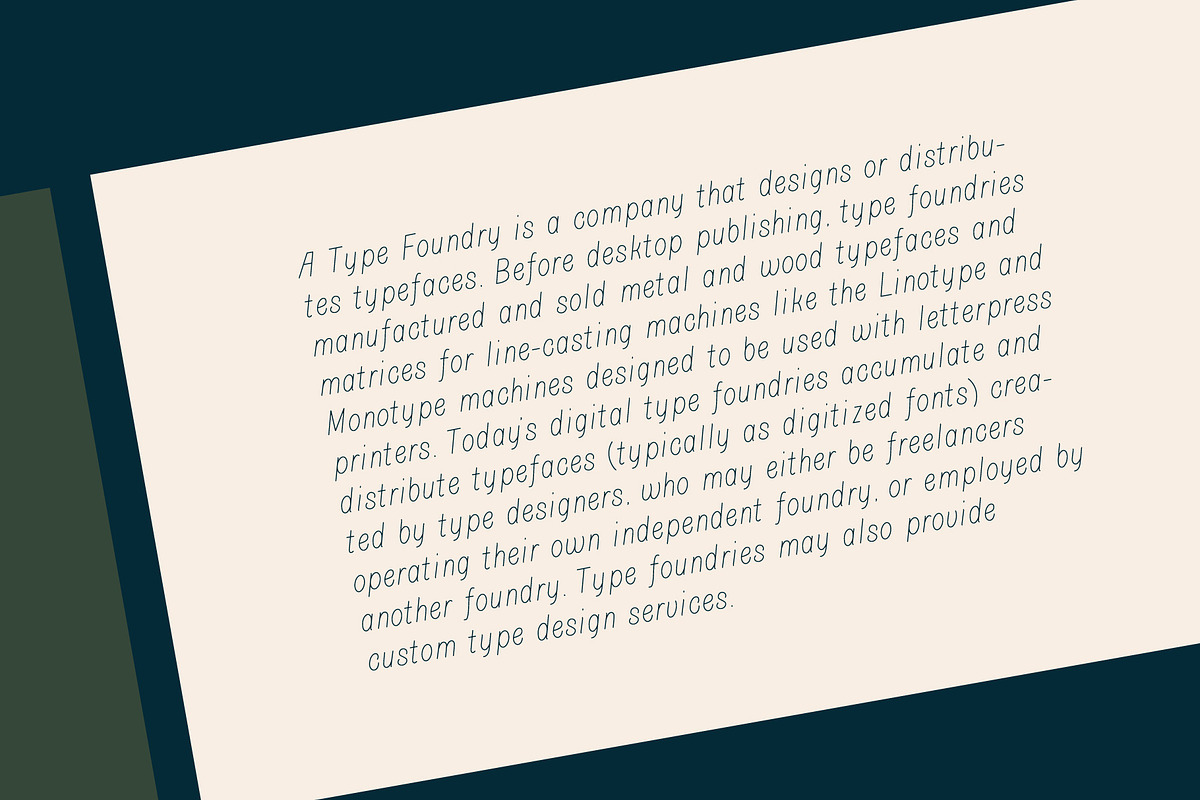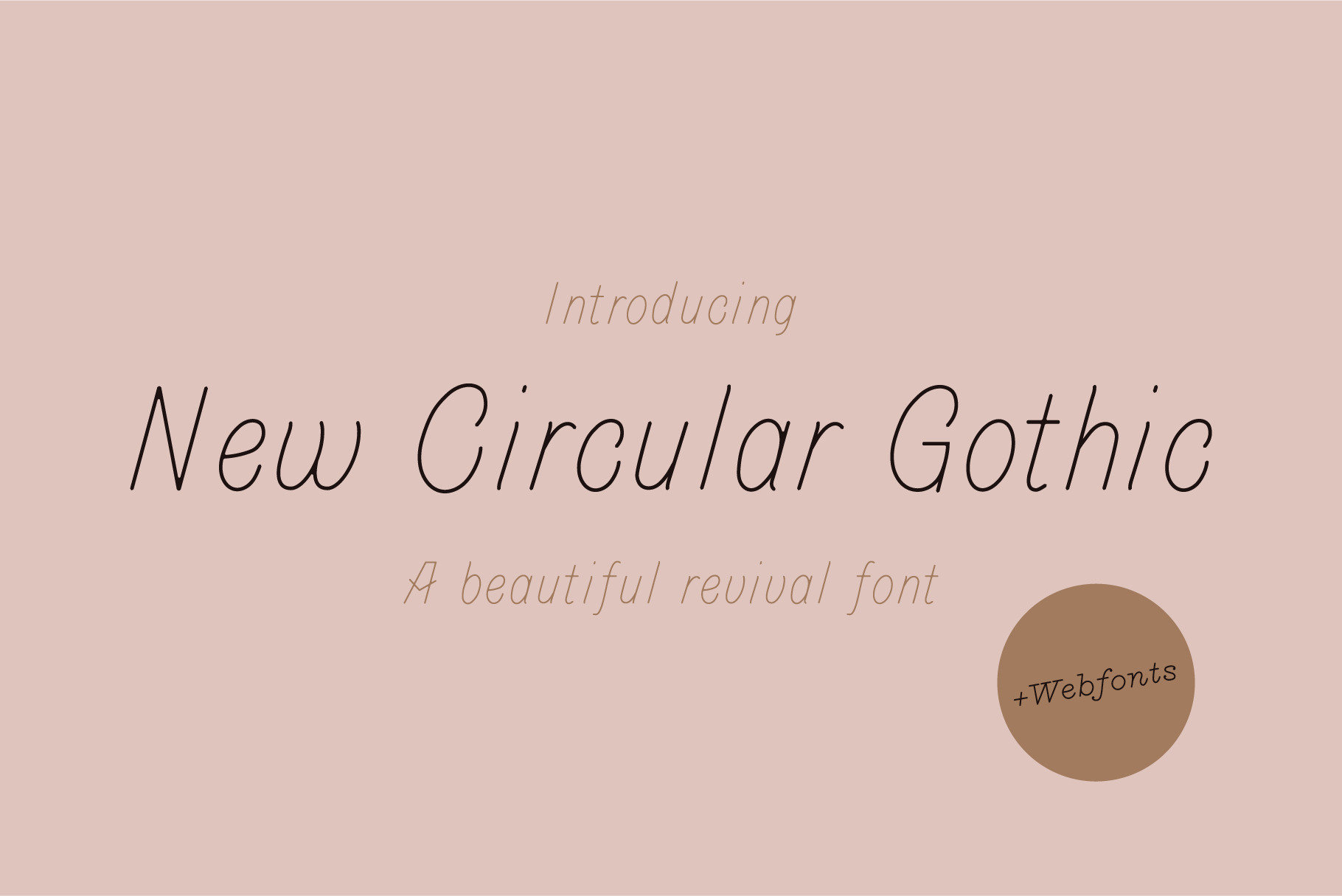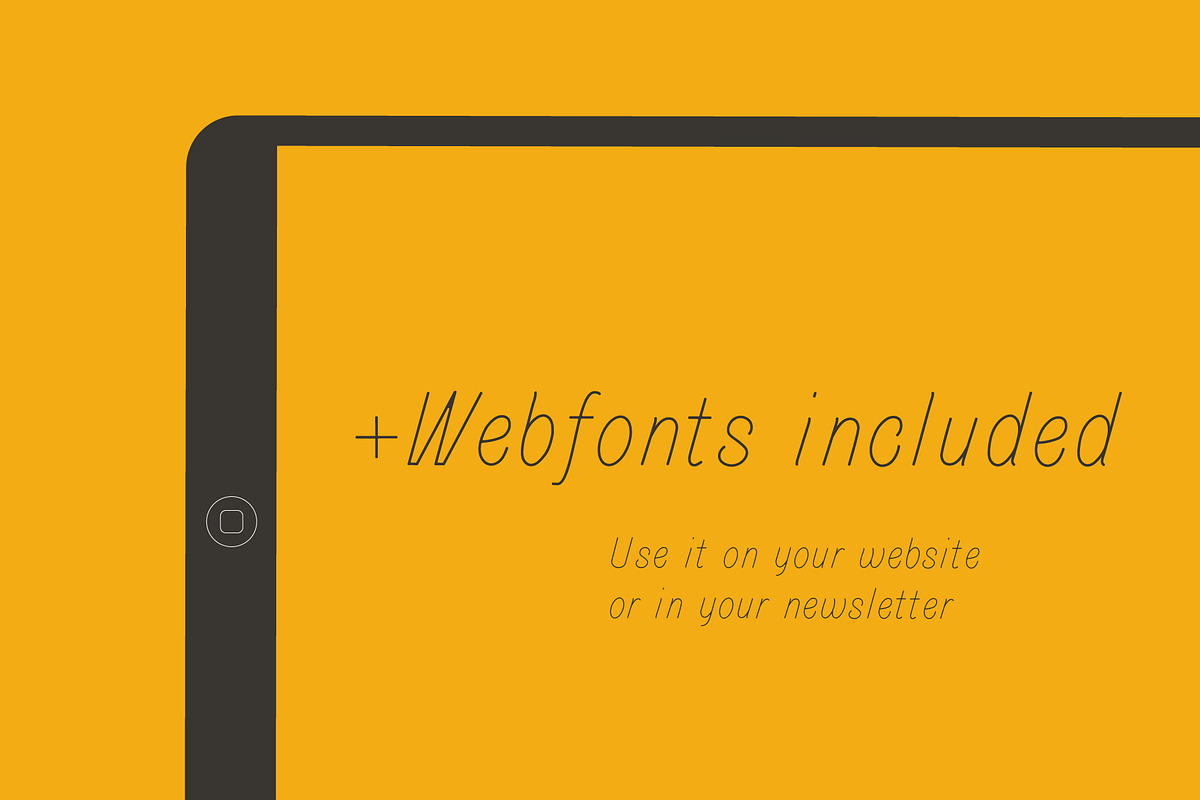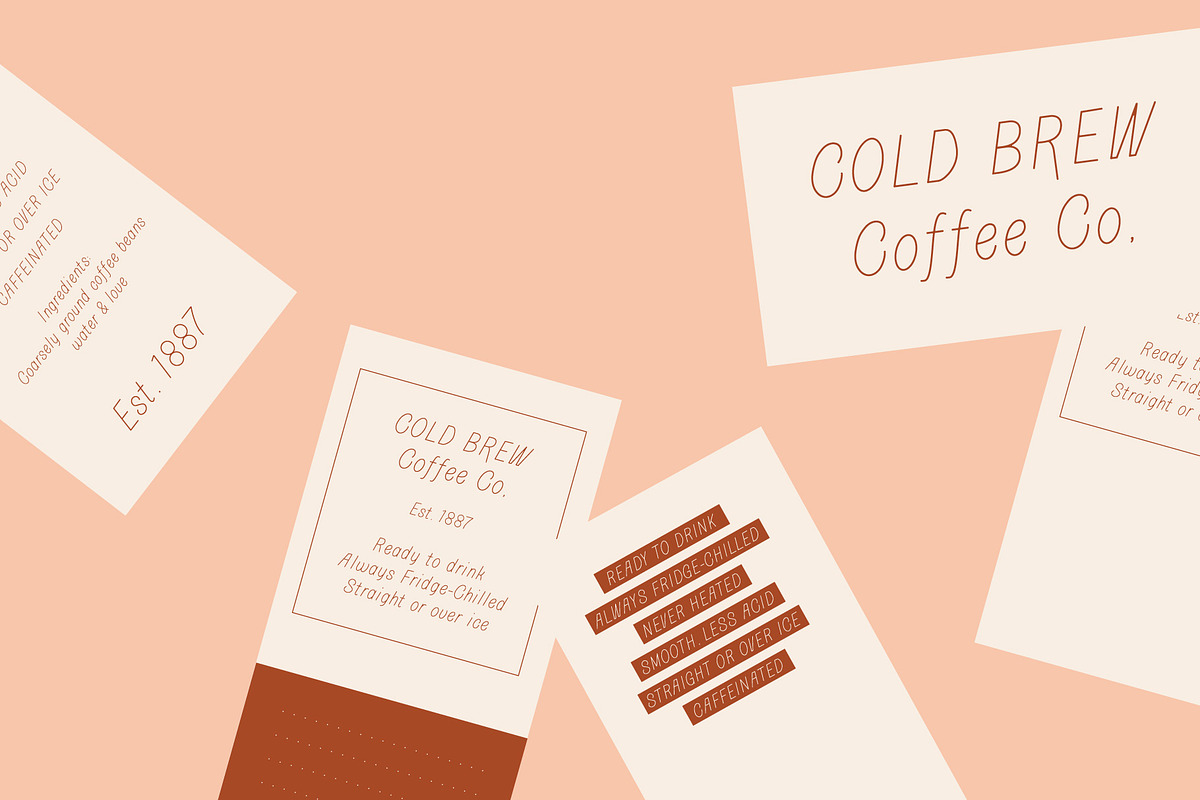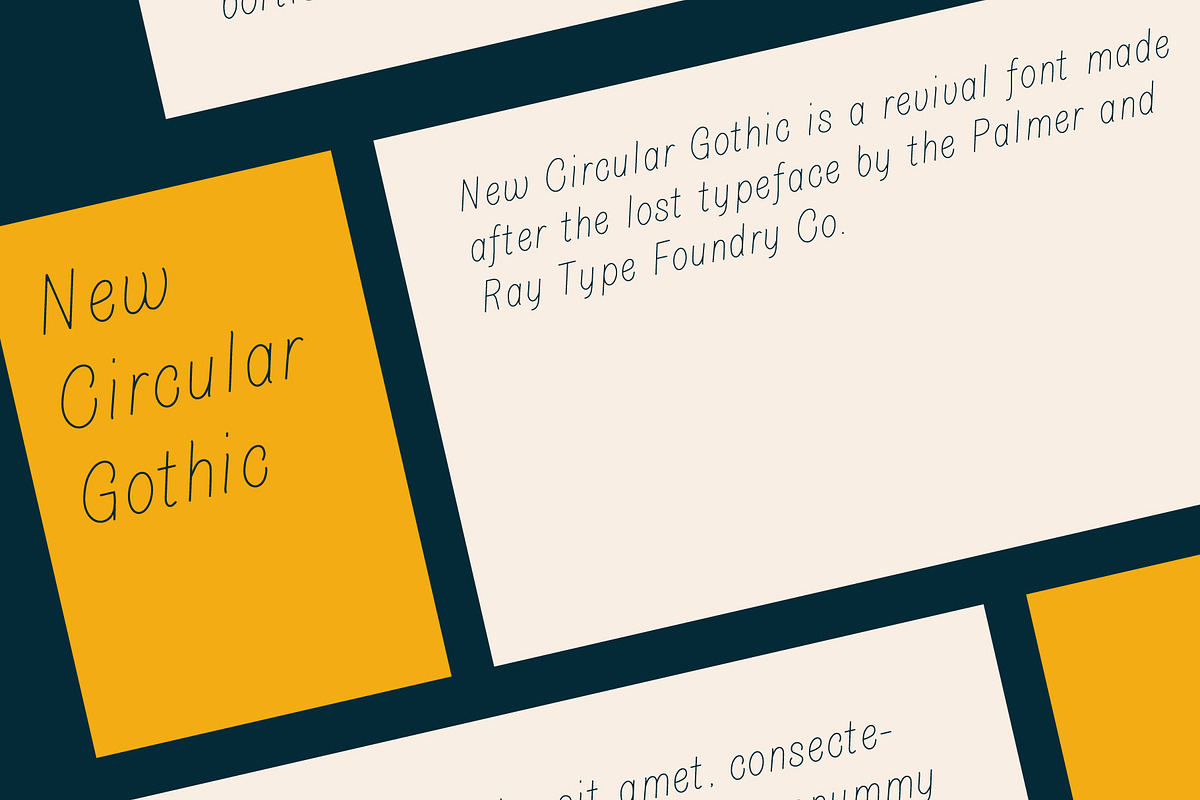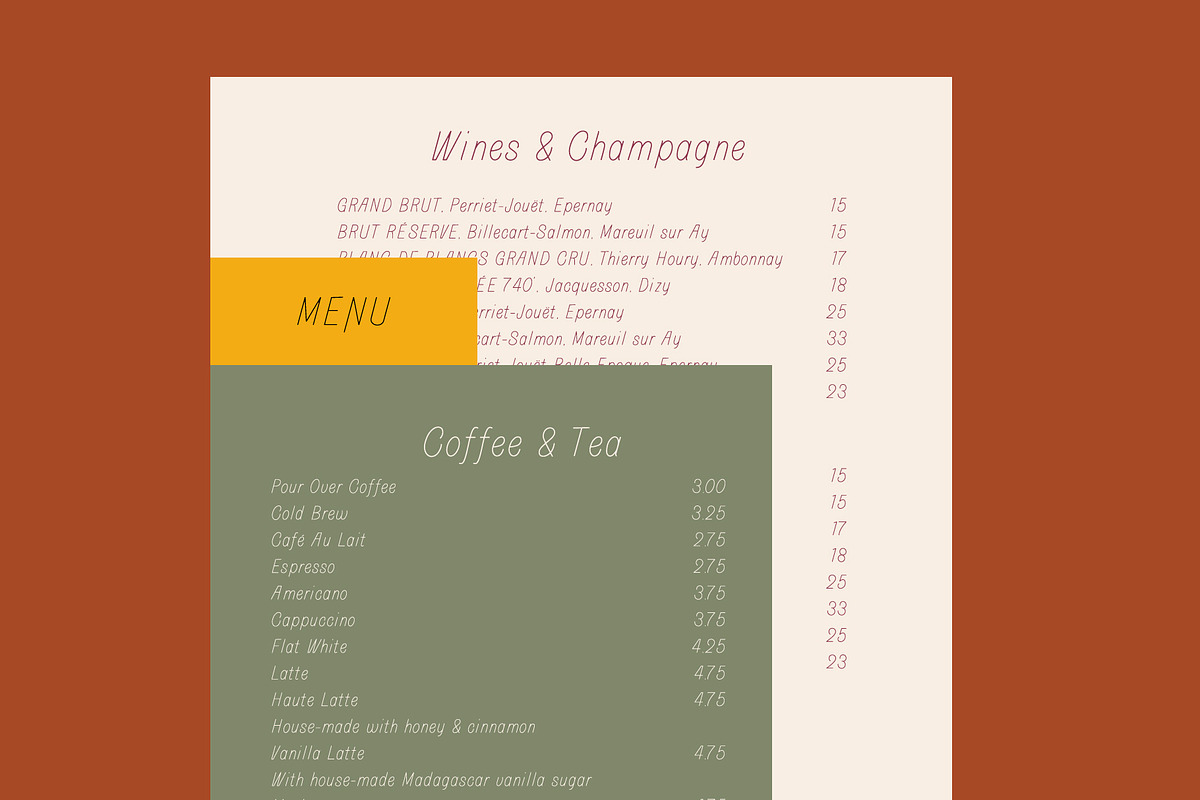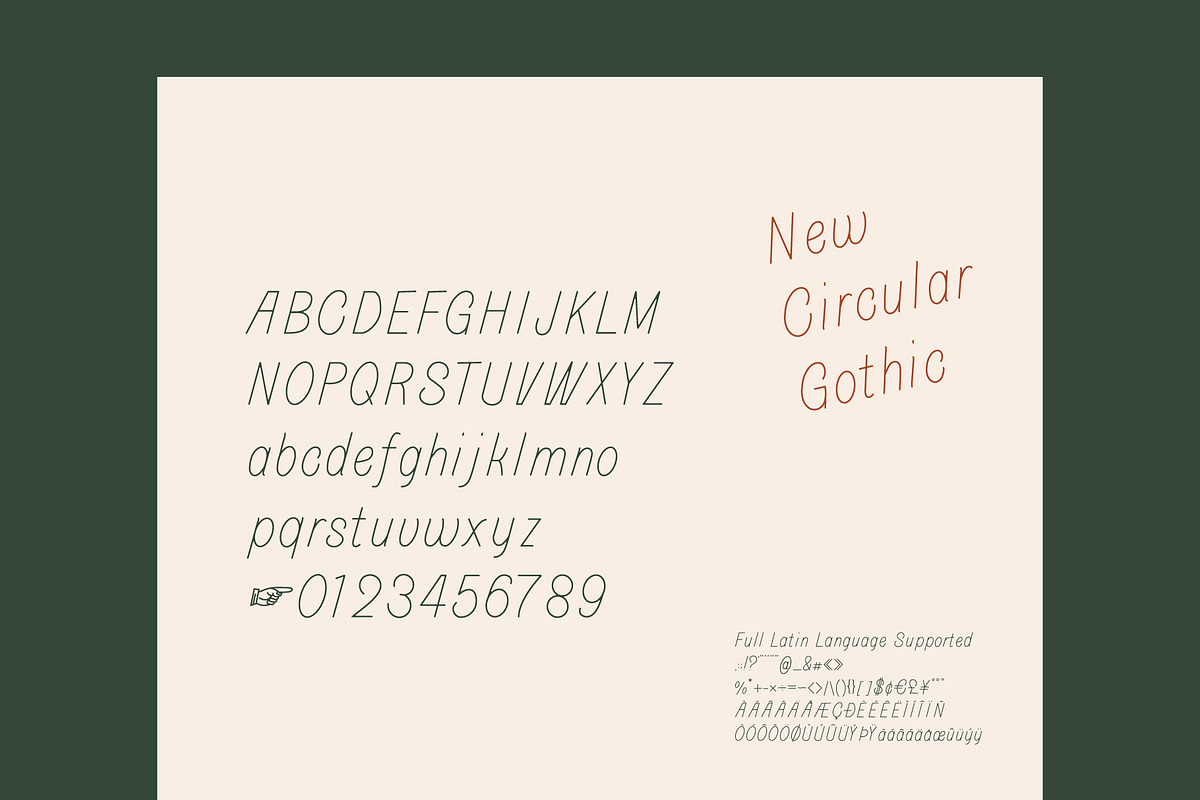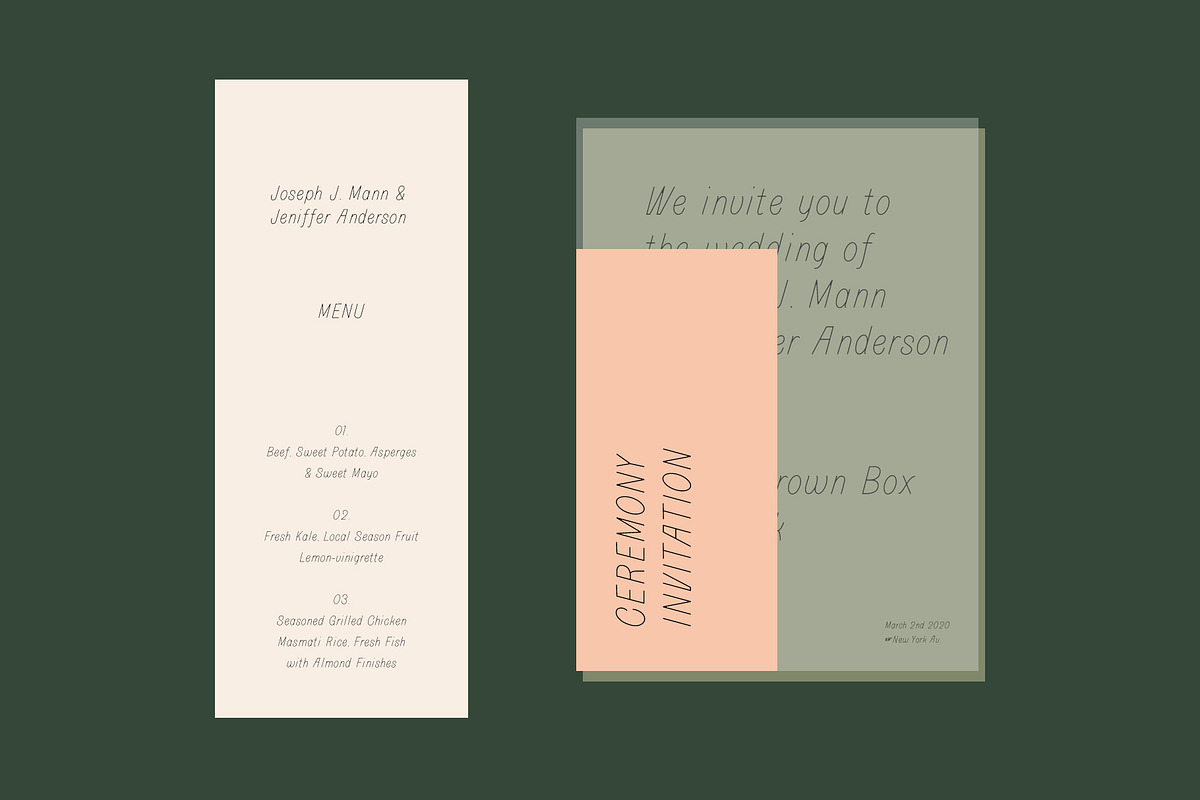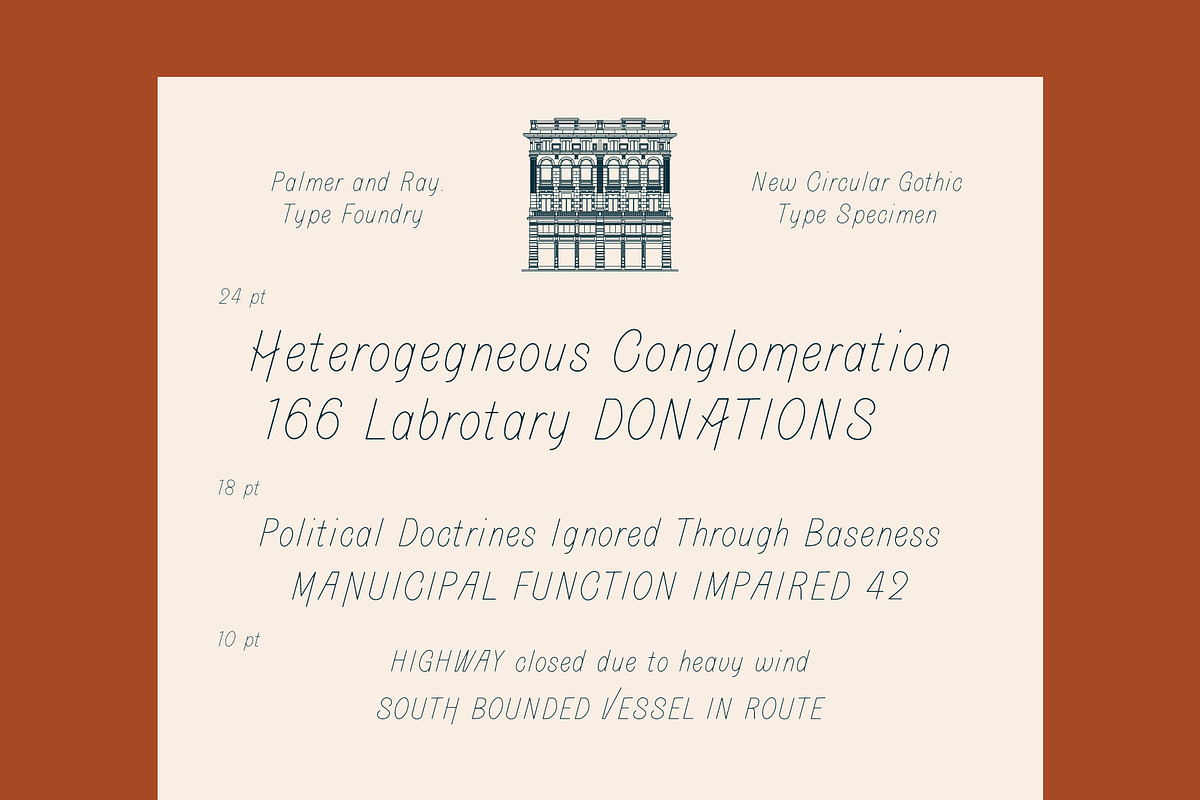
Revival font New Circular Gothic
Do you love vintage lettering? This handmade vintage inspired font was created after the lost typeface of Palmer and Ray Type Foundry made in 1887 in San Fransisco. Perfect for stationery, vintage tags or branding. The font has all the Latin characters and comes with all the accents and it's own set of glyphs that can be accessed via the glyphs panel in your favourite software or with OpenType features turned on.
This sans serif font comes with a wide range of different glyphs. All kind of alternative characters can be accessed via the glyphs panel in your favourite software or with OpenType features turned on.